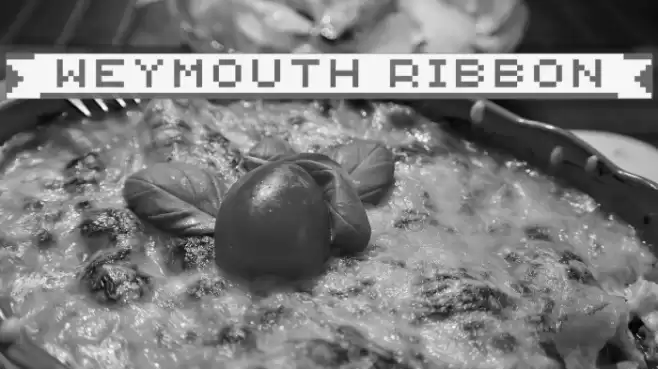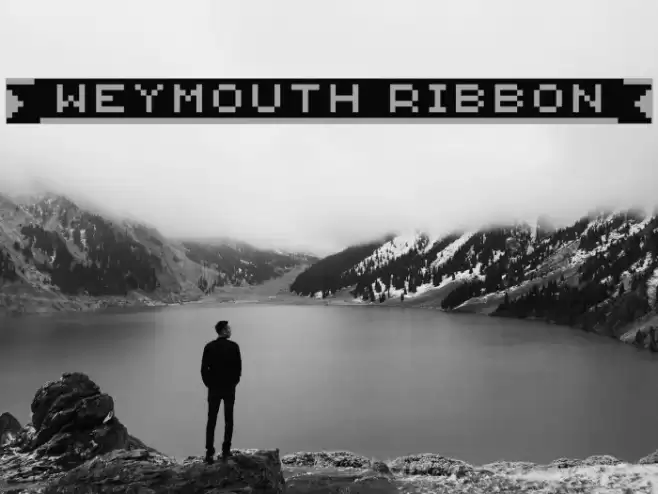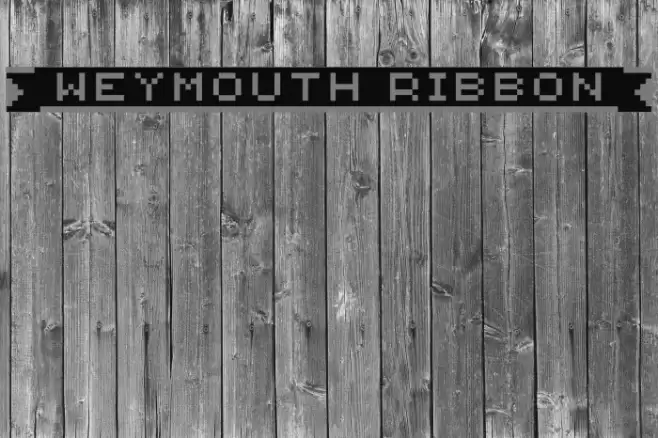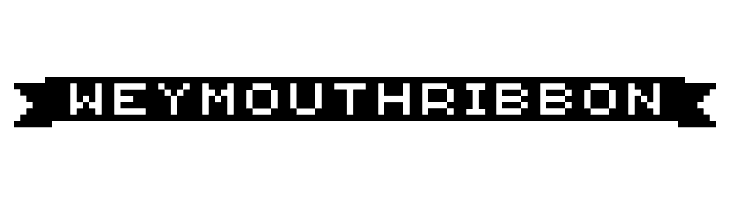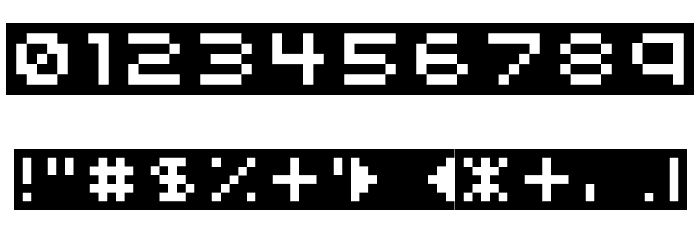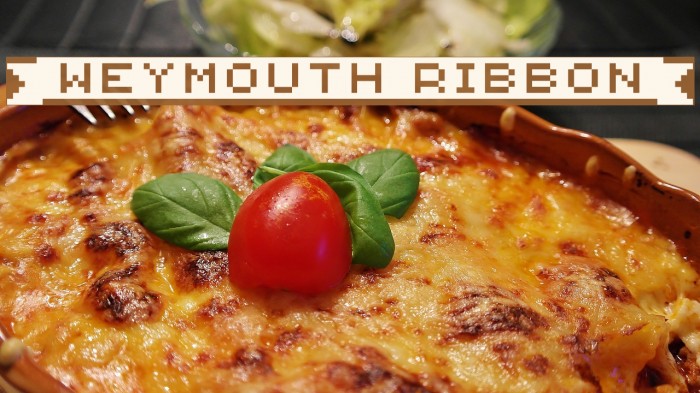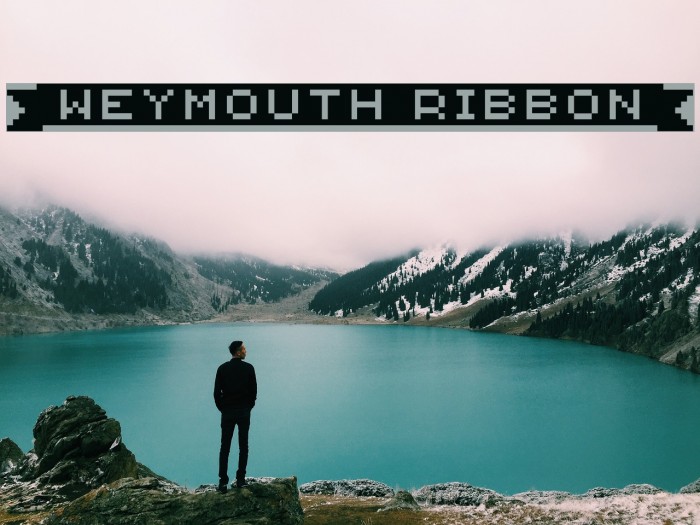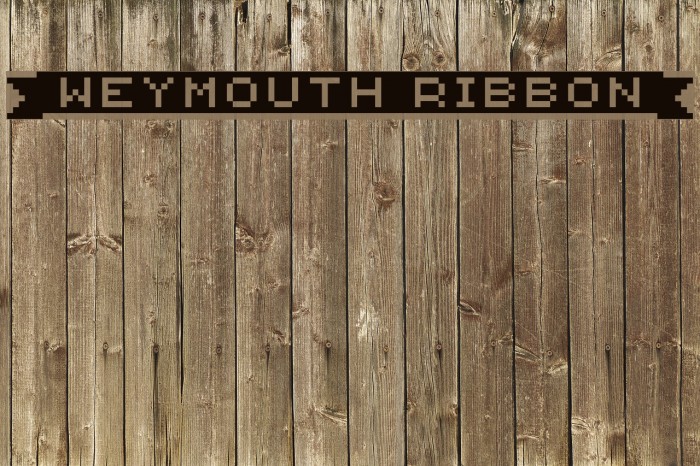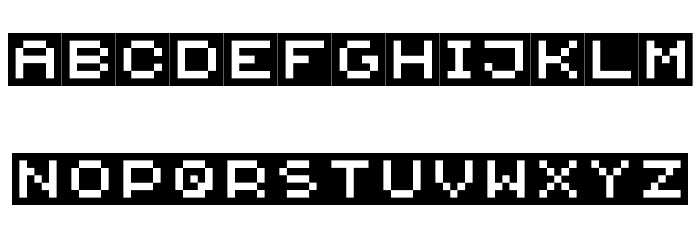
{Weymouth Ribbon} Font
{Weymouth Ribbon} Description
This font features a bold, pixelated style reminiscent of early digital displays and retro gaming aesthetics. Each character is enclosed in a solid black square, creating a striking contrast with the white, blocky letterforms. The design is highly geometric, with uniform stroke widths and sharp angles, giving it a distinctly modern and digital feel. The characters are monospaced, ensuring equal width for each letter and number, which enhances its structured appearance. This font is particularly effective for projects that aim to evoke a sense of nostalgia or a digital, tech-inspired theme.
A bold, pixelated font with a retro digital aesthetic from Uncategorized fonts.
- Proposed Projects: Ideal for retro-themed video games, digital art projects, tech-inspired branding, and nostalgic graphic designs.
- Overall Style: Retro, Digital
- Use Case: Logos, Headlines, Digital displays